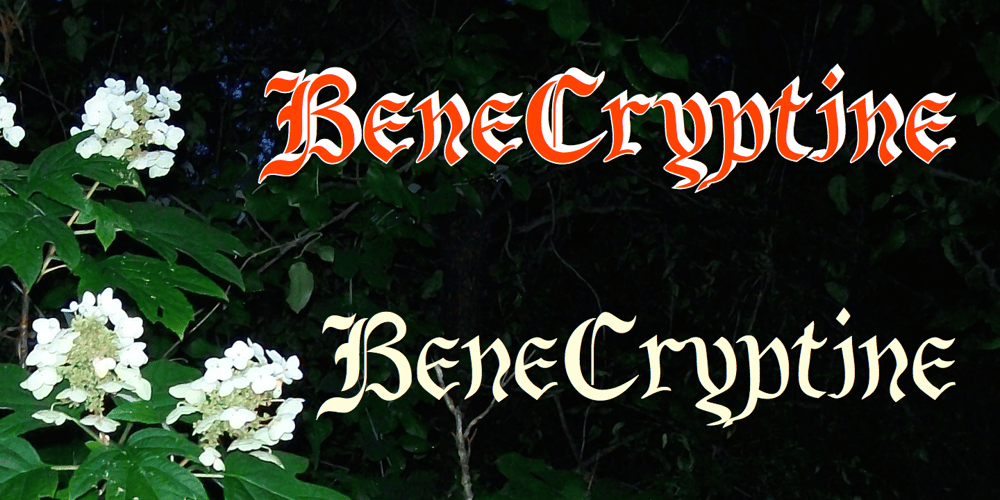
BeneCryptine
BeneCryptine font
BeneCryptine Font Family was designed by Robert Schenk and published by Ingrimayne Type. BeneCryptine contains 4 styles and family package options. BeneCryptine is not based on any particular calligraphic type style. It has exaggerated upper-case letters and hyperactive lower-case letters that give it a wild and undisciplined look. It comes in four styles: the base style, a decayed variant, a shadowed style, and a final style that looks much like the base style but which has the spacing of the shadowed style. This last style can be layered with the shadowed style to easily create lettering with two colors.